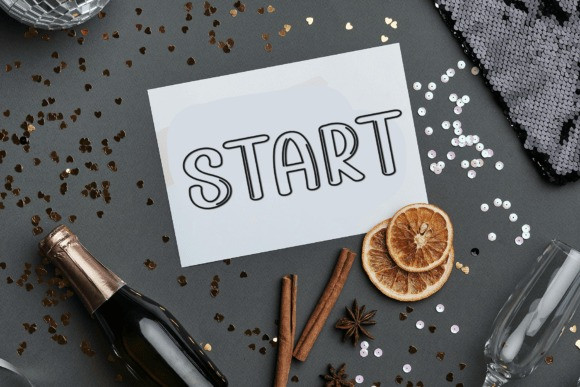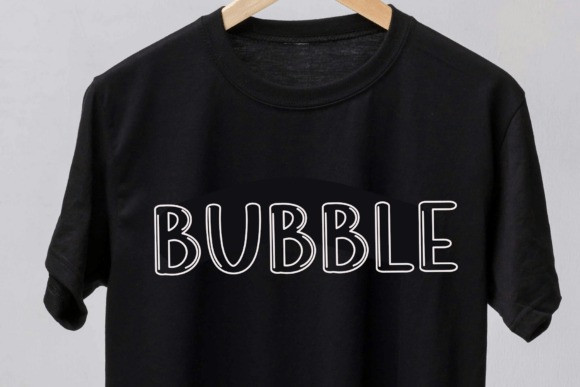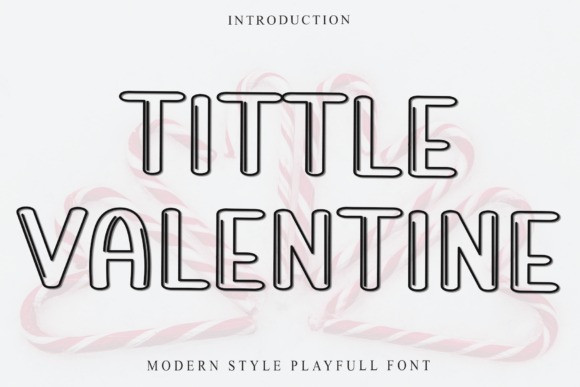
Tittle Valentine Font – Bold yet airy, this hollow display font makes a statement with its outlined letterforms and modern aesthetic. Perfect for creating standout titles, logos, posters, and digital graphics, it adds a stylish twist to traditional bold fonts. The open-space design gives it a contemporary, creative feel—ideal for projects that need to be both striking and sleek.